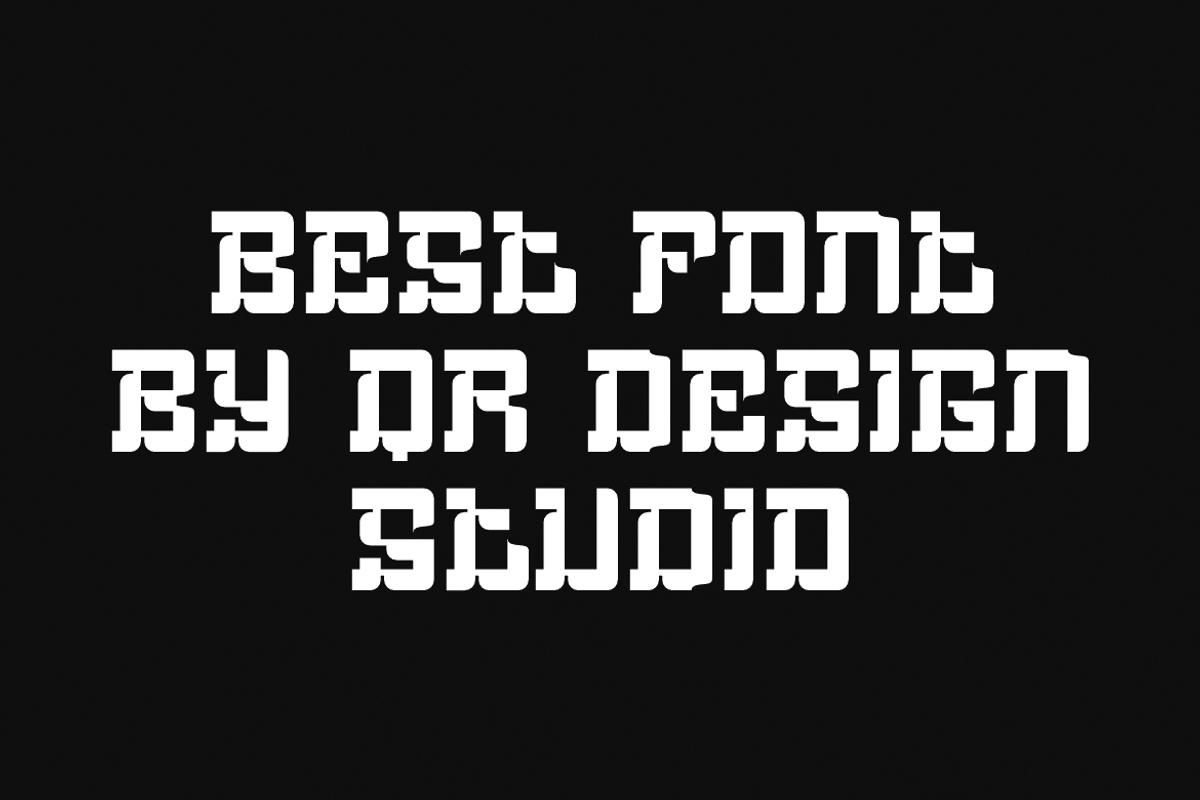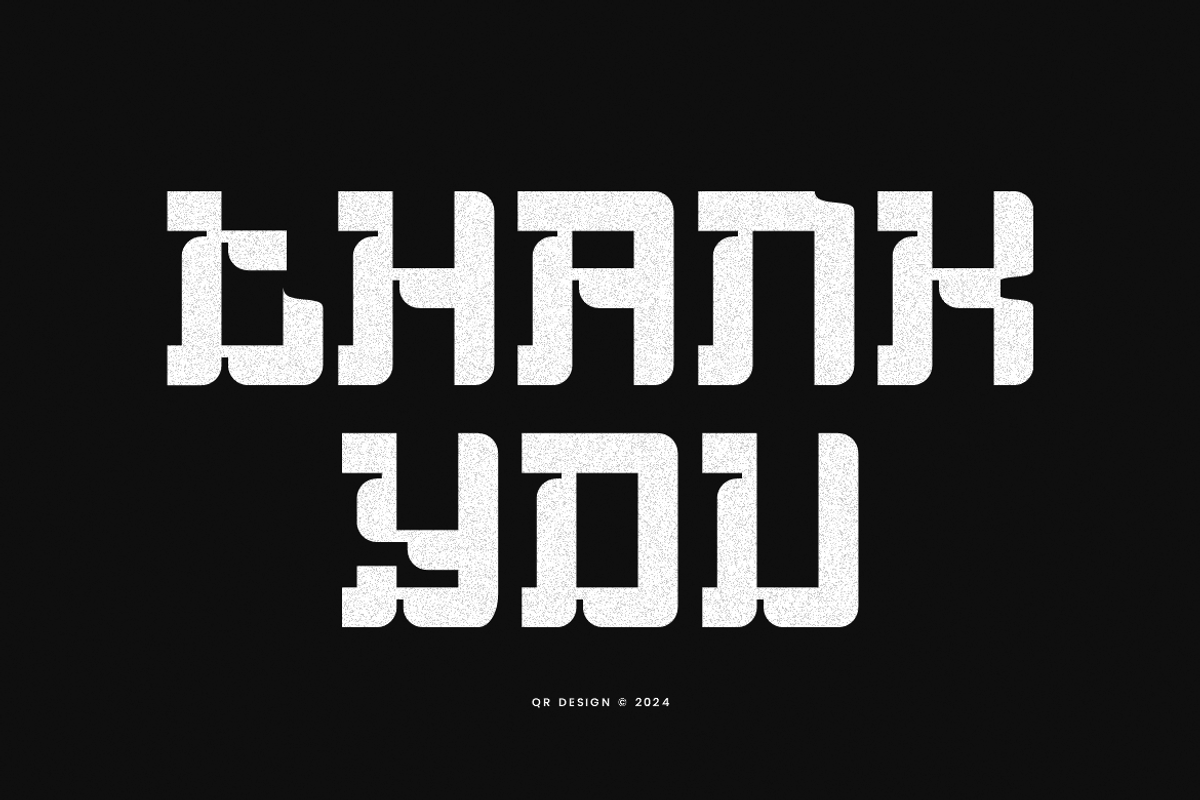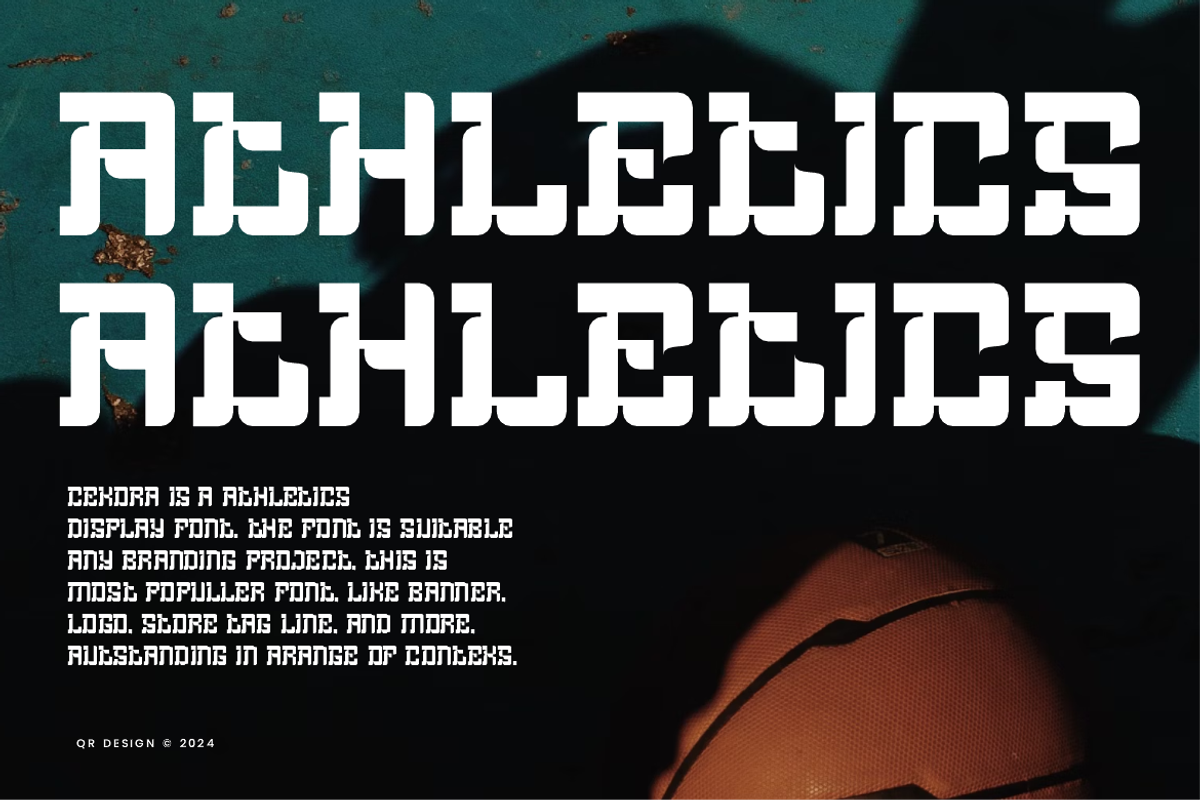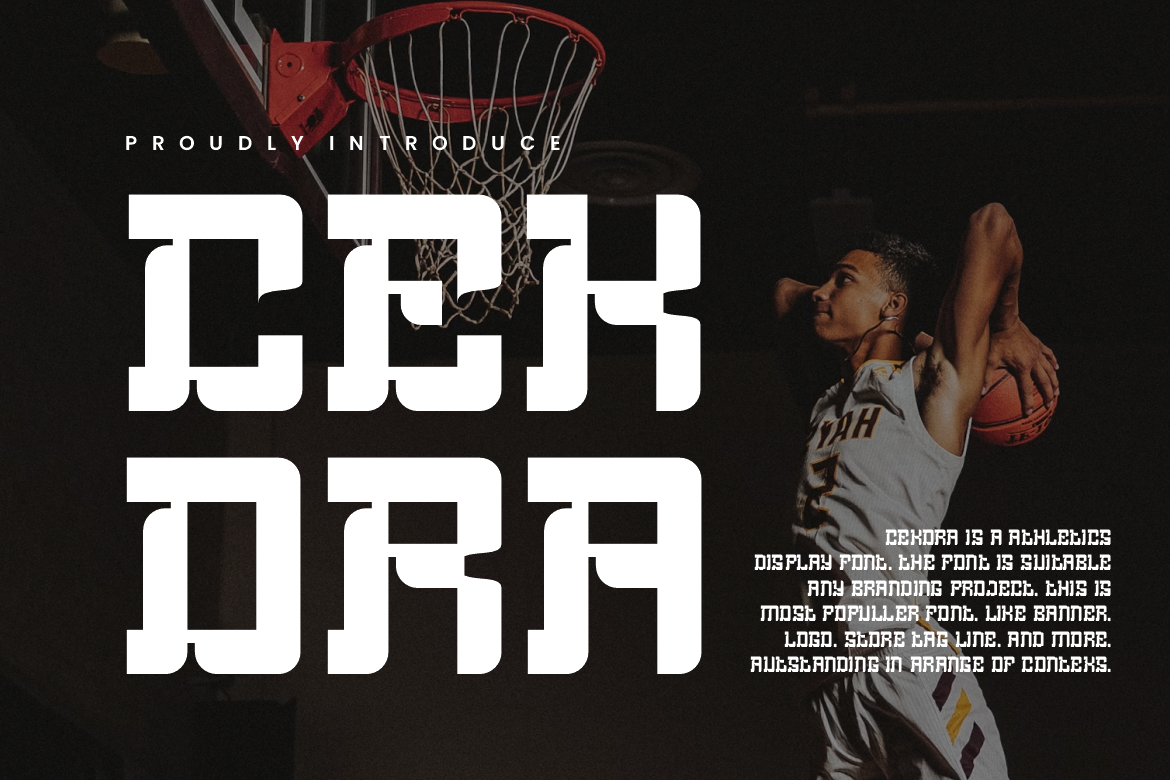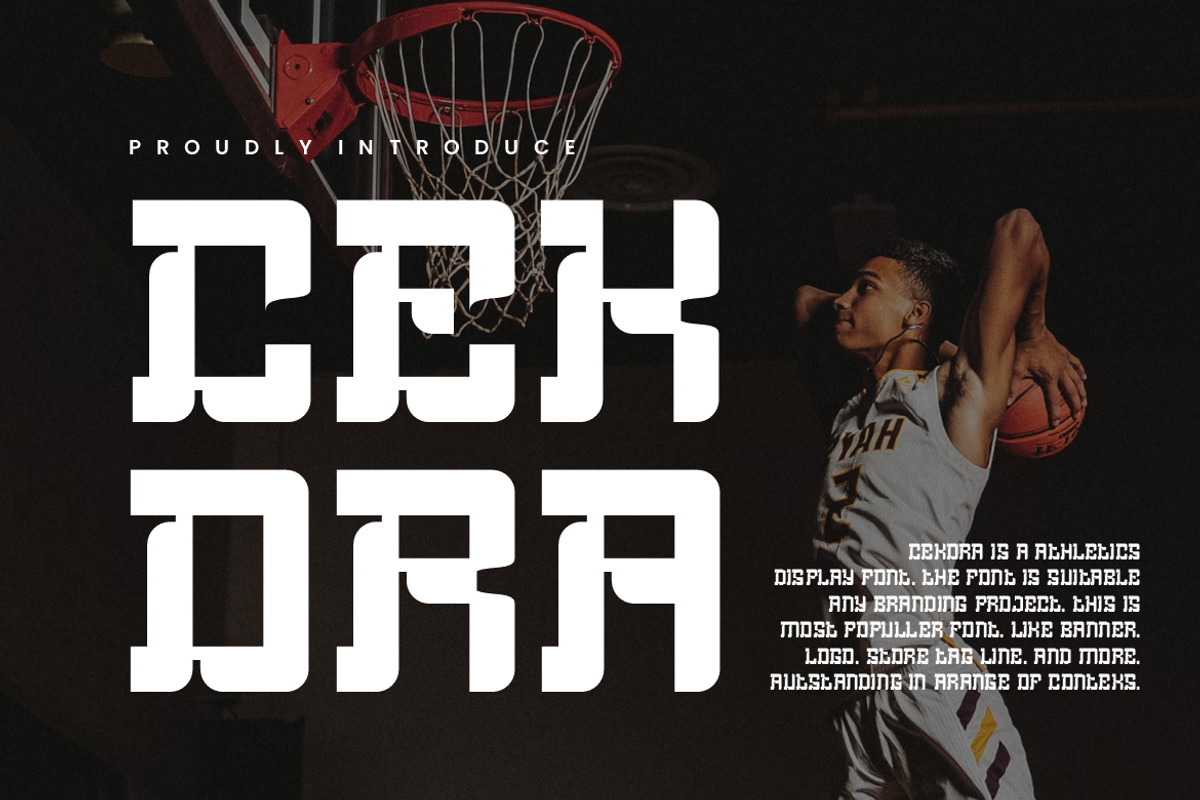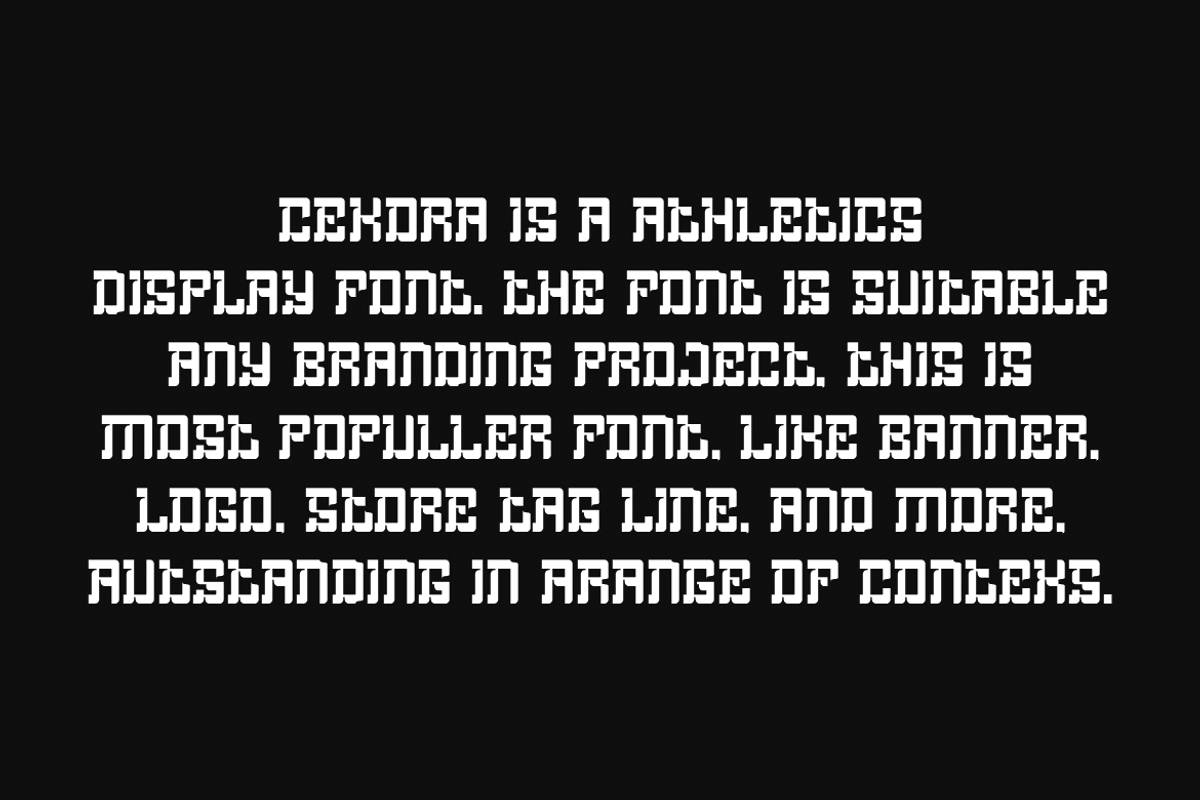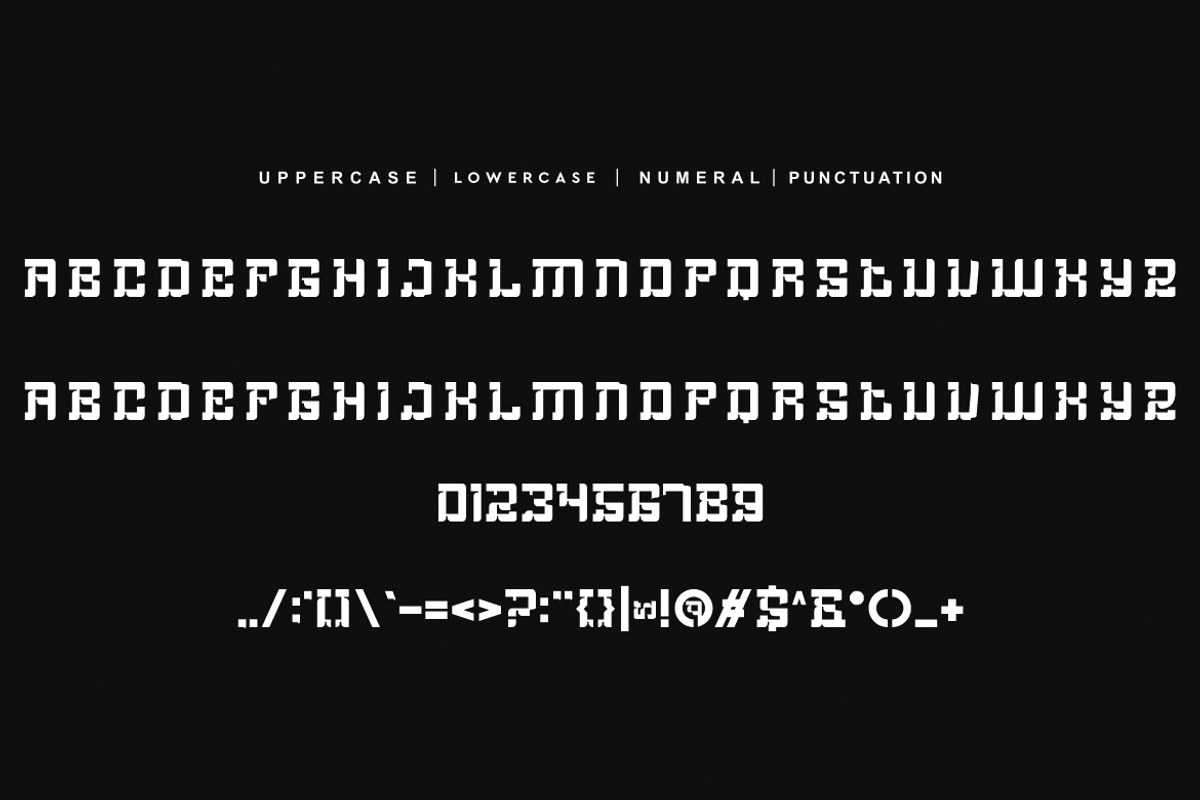
Cekora - Athletics Font
Cekora Font is a Athletics and authentic display font. The font is suitable for any branding project like poster, logo, sport, and many more. Outstanding in a wide range of contexts.